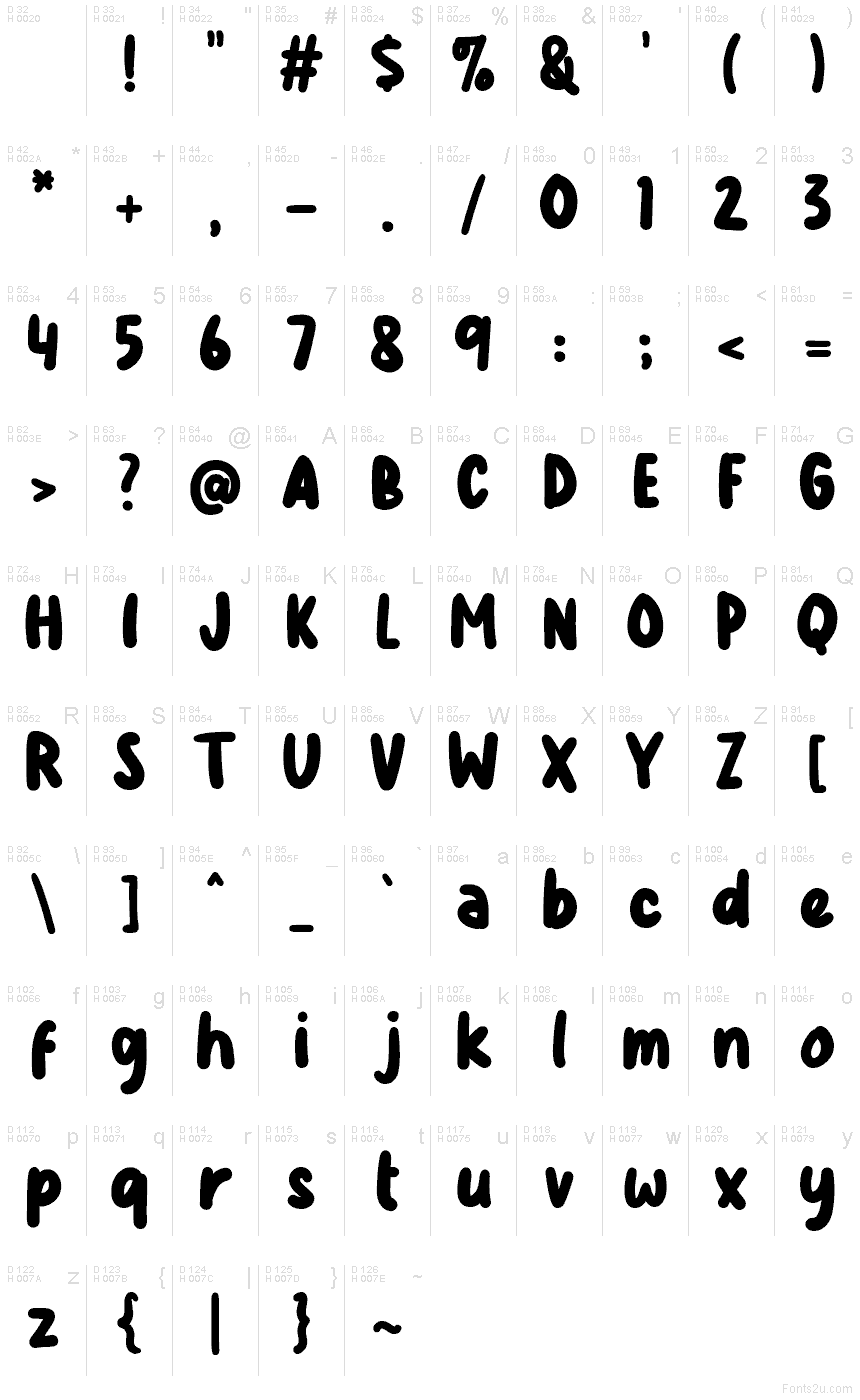
Little Daisy
Little Daisy font by Dm Letter Studio - Dimas Prasetyo is a free bold smooth brush display font. It solves the “cute but readable” challenge with chubby, rounded strokes and a steady rhythm that holds together in headlines and short lines of copy. The inky, cushioned forms feel hand-painted without the mess—smooth contours, generous counters, and even color make it pop on both screen and print.
Using Little Daisy, friendly branding lands with confidence: kids’ products, bakery packaging, café menus, greeting cards, stickers, event posters, and playful social posts. This free font shines when set big with a touch of negative tracking; pair it with a clean sans like Poppins or Montserrat for small text to keep layouts tidy and upbeat.